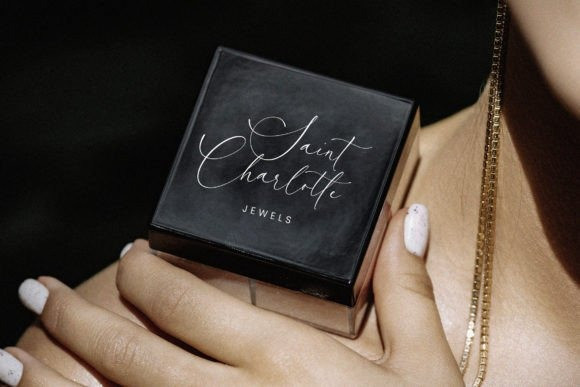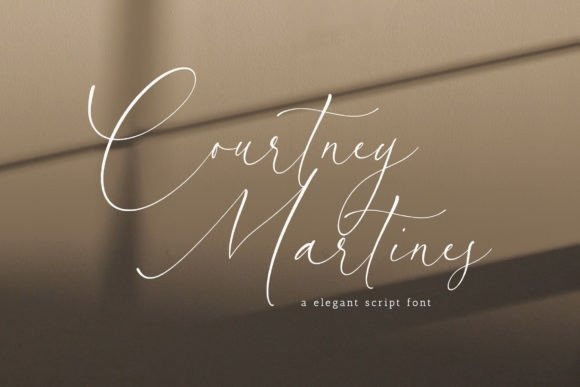
Courtney Martines Font
Courtney Martines Font is an elegant script font, perfect for product packaging, branding, magazines, social media, weddings or any other projec that requires a luxurious, handwriten touch.